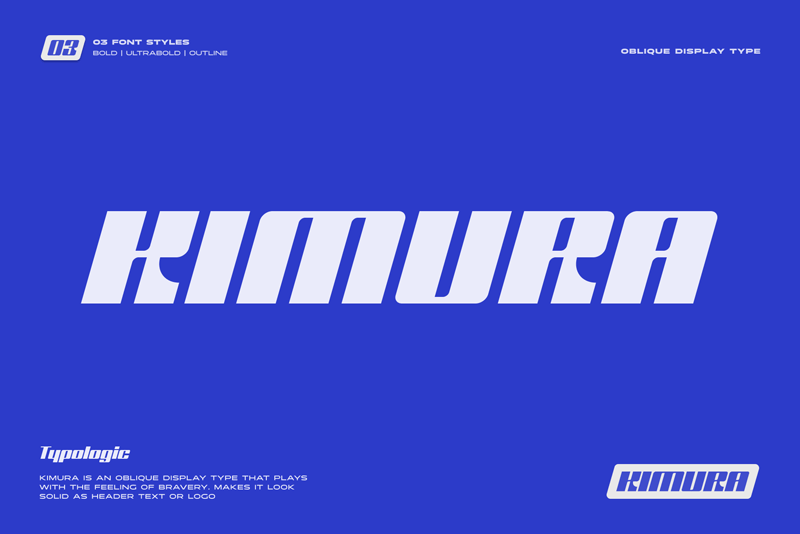
Font name: | Kimura |
Author: | Typologic |
Kimura is an oblique display type that plays with the feeling of bravery. With a shape that contrasts between vertical and horizontal lines makes it look solid as header text or logo. Kimura is available in two weights: bold, ultra bold and an outline version. Full Version: https://crmrkt.com/4eo8J5 Thanks. |